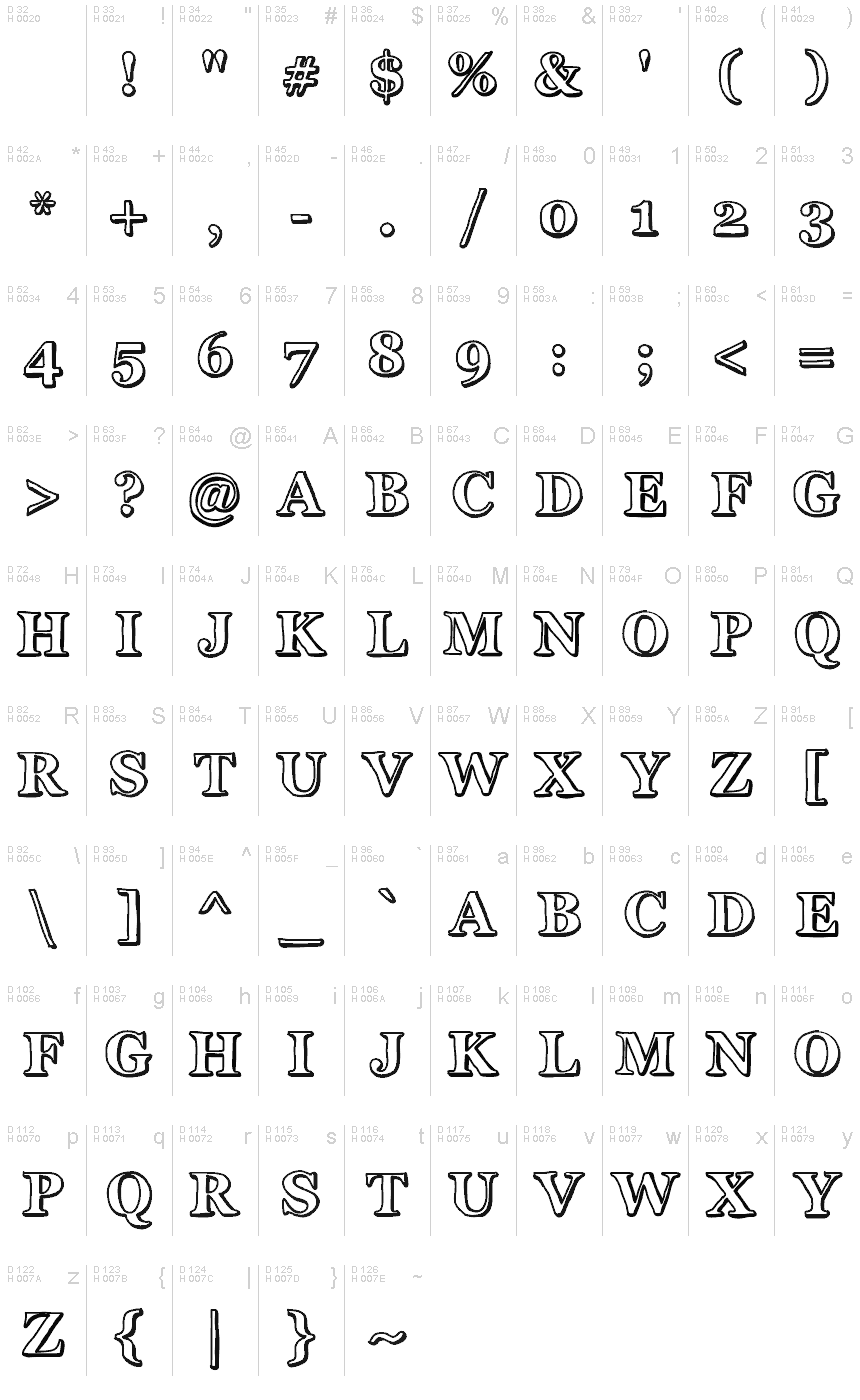
Okay
Okay is a bold, ornate display font that commands attention. Designed by Jake Luedecke, this typeface boasts an intriguing blend of classic elegance and modern flair. The sweeping serifs and dramatic flourishes create a sense of grandeur, while the clean lines and balanced proportions lend a refined sophistication. This font excels in headline, title, and logo applications, where its strong personality can truly shine.
Okay's versatility extends to editorial design, branding, and advertising, making it a valuable asset for designers seeking to craft striking, memorable visual identities.